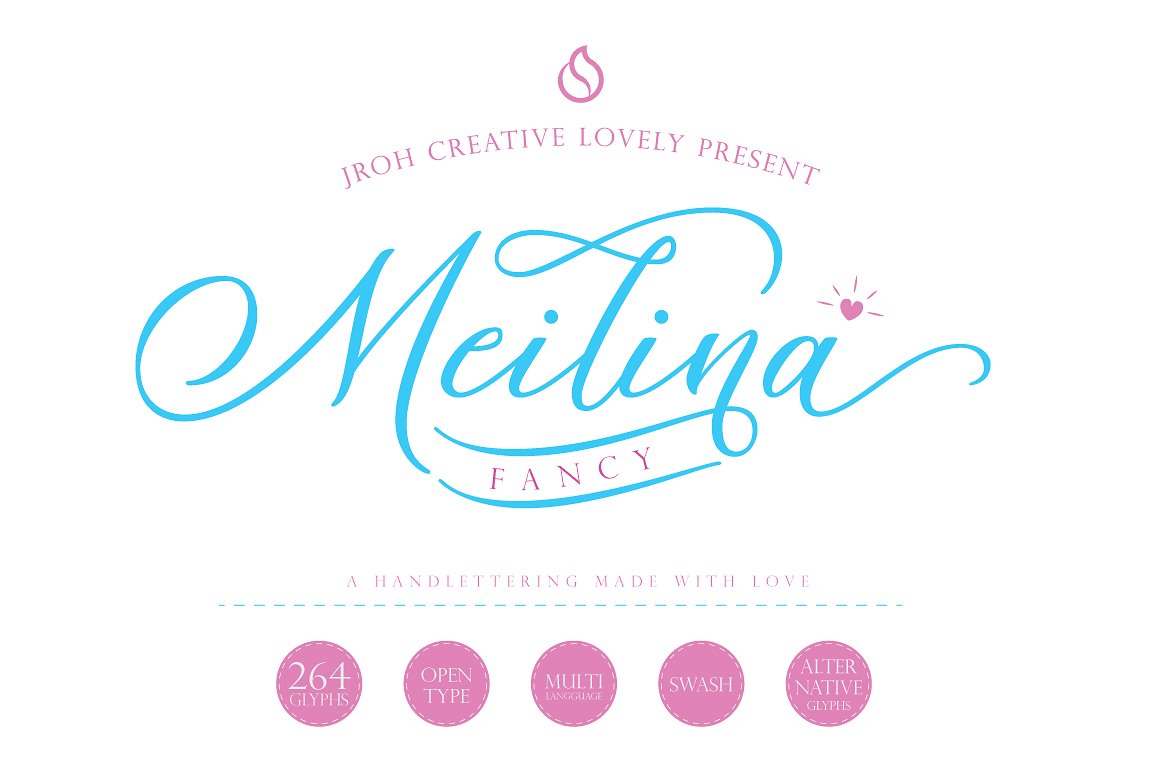
Meilina Fancy Script
Meilina Fancy Script Font
Hi….let me introduce the Meilina Fancy, this font was created with love to help you designing your lovely artworks such as wedding invitation, greeting card, merchandise, t-shirt, ect
The Meilina Fancy was designed for personal characters such as love, soft, dynamic, readable, etc. TradeMark containing 264 Glyphs with the alternative characters to improve your design.